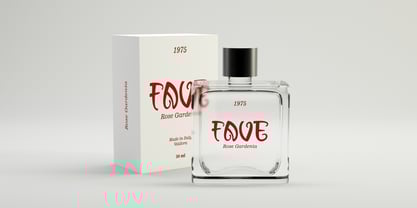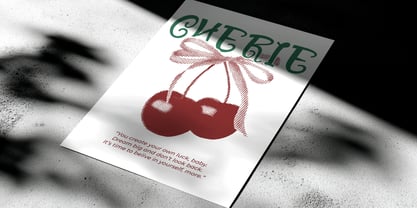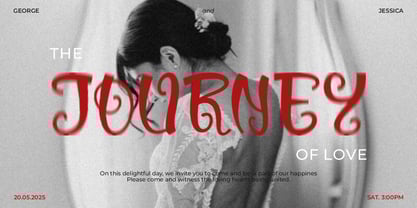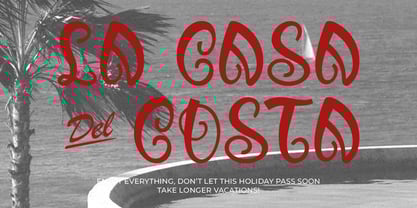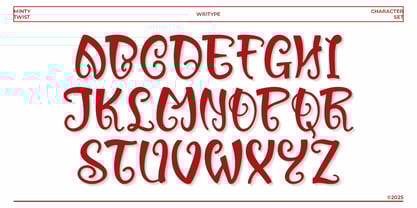
WR Minty Twist
by WriType
The WR Minty Twist Font Family was designed by Wira Pras and published by WriType. WR Minty Twist contains 1 styles.
WR Minty Twist is an elegant swirl display font featuring playful curves and unique details. It provides a unique, decorative feel without sacrificing readability. This swirl font exudes a romantic aura with a timeless, classic style. Its flowing letterforms add a charming, festive touch, perfect for invitations, packaging, and branding that conveys beauty and warmth.
We are Writype, a team of three designers from Kebumen, Indonesia, specializing in display fonts. Founded in mid-2024, our focus is on creating unique and bold typography that stands out in design projects. Starting from our dismay with the many common fonts out there, we aim to break away from the norm and offer something fresh and impactful. Through Writype, we strive to create fonts that are both functional and visually appealing, bringing new energy to the world of typography.